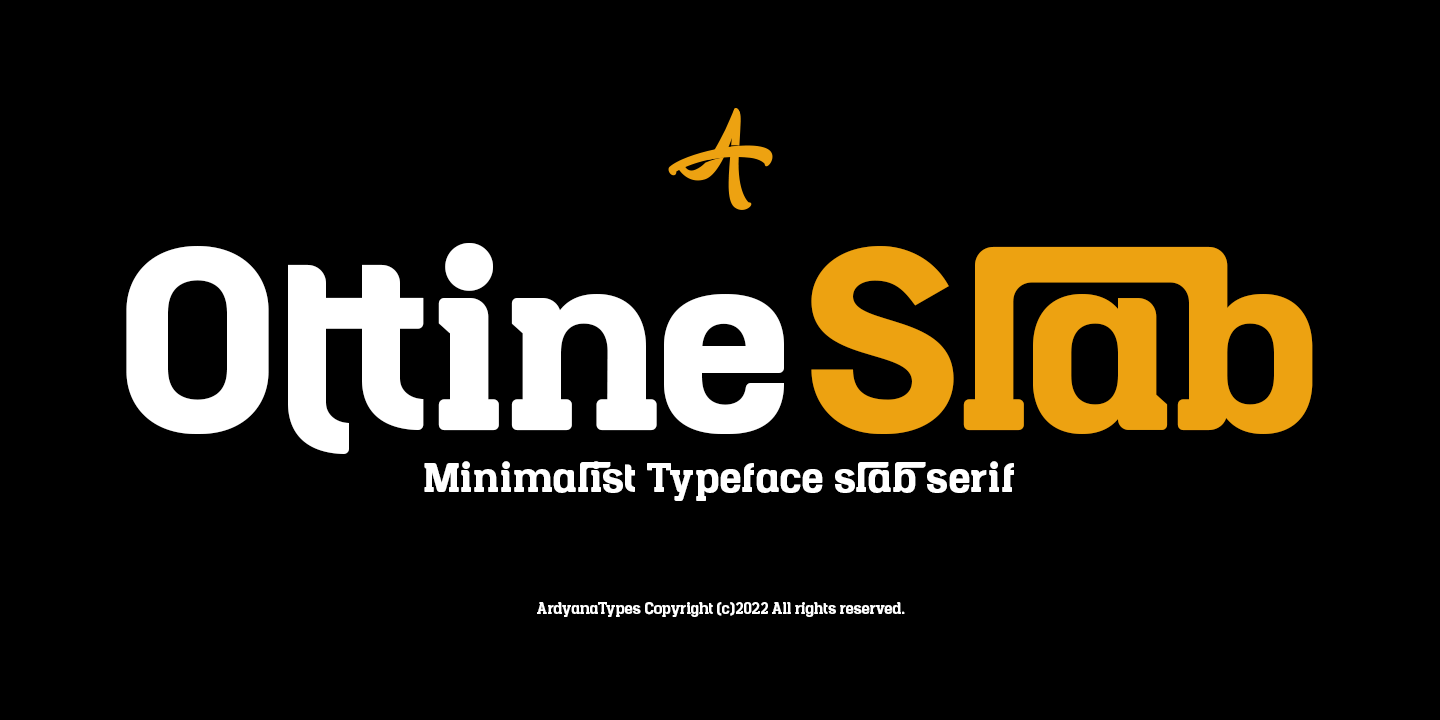
The Ottine Slab Font is an outstanding choice for projects that demand a modern, robust, and highly legible aesthetic with a strong, industrial, yet approachable presence. As a contemporary slab serif, it's perfectly suited for bold headlines, branding (especially for tech, urban, or artisanal companies), packaging design, editorial layouts for modern magazines, digital interfaces requiring clear hierarchy, and any design that benefits from a strong, authoritative, and easily readable typeface. Its sturdy yet refined character makes it ideal for conveying a sense of reliability, modernity, and confident communication.
What makes Ottine Slab Font so exciting is its impeccable balance of solid slab serifs with a clean, contemporary feel. It features well-defined letterforms and consistent spacing, ensuring outstanding readability across various applications, from commanding headlines to extensive body text. This font carries a sense of unpretentious professionalism and efficiency, making your content appear streamlined and trustworthy. It's a true workhorse typeface that provides a solid, unobtrusive foundation for any typographic system, allowing your message to shine through with absolute clarity and a contemporary appeal. Its strong, geometric structure often gives it a friendly yet powerful vibe, making it incredibly versatile for both print and digital media.
The Ottine Slab Font family is typically comprehensive, offering a wide array of weights and styles to provide maximum flexibility for designers. You can expect a full spectrum from Thin and Light to Regular, Medium, SemiBold, and Bold, often accompanied by complementary italic versions for each weight. This broad family allows for sophisticated typographic hierarchies, enabling precise control over emphasis, flow, and visual balance within your designs. Some versions might also include condensed or extended styles, specialized numerals, or other OpenType features for detailed typographic refinement and broad language support, making the Ottine Slab Font Free Download an incredibly versatile and globally applicable tool.
Whether you're developing a cutting-edge digital platform, designing a sleek corporate identity, or crafting a visually compelling annual report, the Ottine Slab Font Free Download offers an indispensable tool. Its contemporary aesthetic, robust functionality, and broad applicability make it a premier choice for any project that requires a typeface of lasting quality, professional polish, and versatile application.